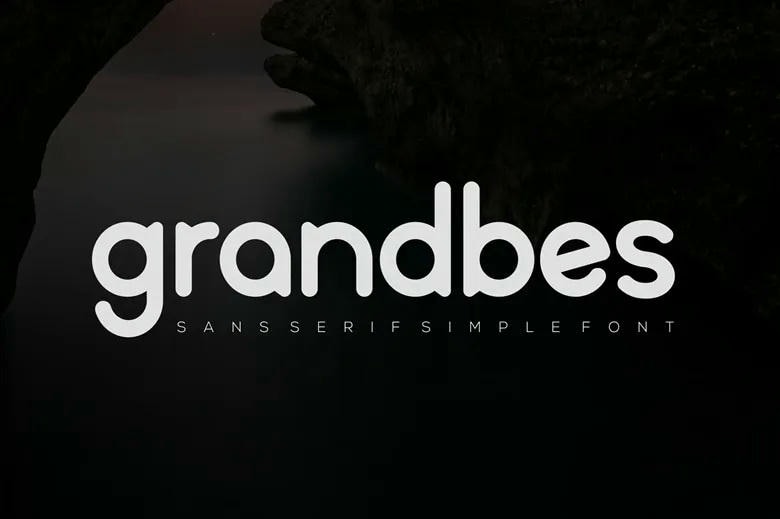
Grandbes Font
Grandbes is a sans serif font that is plain but noble and with good intentions, an honest display font. This font will be relevant for any branding works like logo works, t-shirt printing, esports and many more. In many respects which is quite effective when used in a number of situations.
Grandbes Sans Serif Font